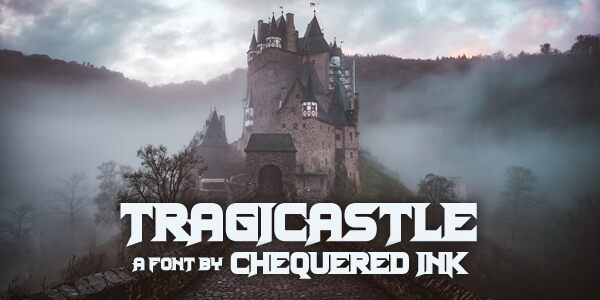
Tragicastle font by Chequered Ink is a gothic typeface that boasts modern style with bold weight and expanded width. Its unique design makes it perfect for projects that require a touch of dark elegance, such as horror movie posters, Halloween party invitations, or gothic-themed book covers. Tragicastle adds a dramatic flair to any project with its captivating appearance and powerful presence. Whether you're designing an album cover for a heavy metal band or creating spooky merchandise for your online store, Tragicastle is the ideal choice to make your designs stand out from the crowd.
Tragicastle
Tragicastle by Chequered Ink.